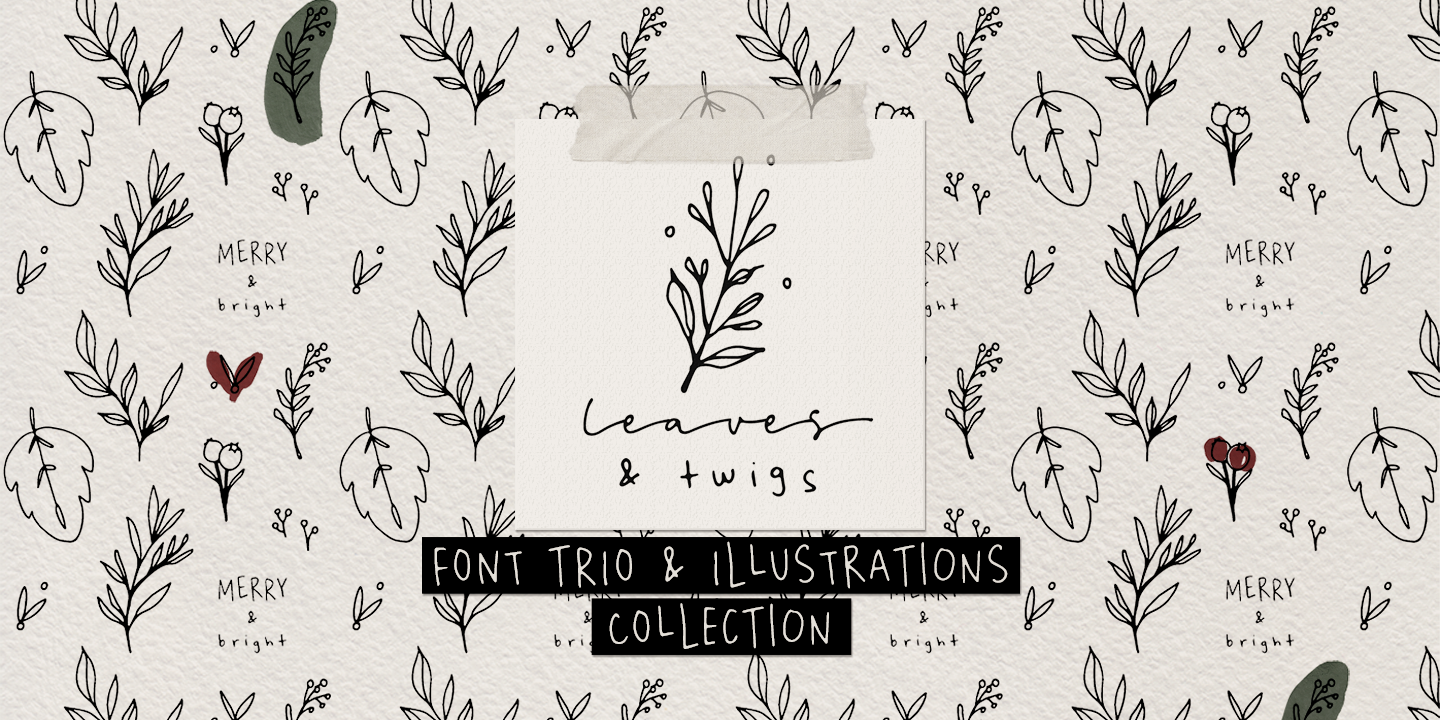
The Leaves and Twigs Font is exceptionally suited for numerous nature-inspired applications including organic product packaging, botanical garden signage, eco-friendly brand communications, natural skincare labeling, environmental campaign materials, rustic wedding invitations, nature photography portfolios, outdoor education materials, sustainable lifestyle branding, and artisanal craft packaging. Its organic character makes it particularly effective for environmental organizations, natural product companies, eco-conscious brands, and lifestyle businesses seeking to convey authenticity, sustainability, and natural harmony in their visual communications and brand presentations.
What makes the Leaves and Twigs Font incredibly exciting is its authentic representation of natural organic forms combined with sophisticated typographic design. This distinctive typeface captures the essence of botanical beauty and organic growth patterns while incorporating contemporary design elements that ensure professional quality across all nature-focused applications. The font's captivating character emerges from its flowing, branch-like letterforms, natural proportions, and carefully crafted details that evoke a sense of environmental harmony and organic authenticity, making it perfect for brands seeking to establish credibility in the eco-conscious market and appeal to environmentally aware audiences.
The Leaves and Twigs Font family offers a comprehensive collection of weights and styles designed to accommodate various natural branding requirements. The collection typically includes light, regular, medium, bold, and black weights, with many versions featuring organic italic variants that enhance the font's natural flow and botanical character. Some editions may include decorative leaf elements, twig ornaments, and nature-inspired alternates that provide additional design options for creating unique typographic treatments and environmentally focused brand applications.
Environmental designers and eco-brand professionals consistently select the Leaves and Twigs Font Free Download for its exceptional organic authenticity and natural appeal. The font features carefully engineered spacing and kerning that maintains readability while preserving its distinctive botanical character, ensuring effective communication across various natural applications and sustainable brand contexts. Its robust construction works well in both digital and print environments, while the comprehensive character set includes uppercase and lowercase letters, numerals, punctuation marks, and special symbols, along with extensive language support for international environmental projects and global sustainability communications.
The Leaves and Twigs Font represents the perfect fusion of natural inspiration and professional design standards, combining organic aesthetics with contemporary functionality. Its botanical appearance appeals to eco-conscious consumers while maintaining the sophistication required for serious environmental business applications. The font's remarkable adaptability allows it to work effectively in both casual nature contexts and formal sustainability presentations, ensuring consistent environmental appeal across organic websites, eco-friendly packaging, environmental reports, and nature-focused marketing campaigns.